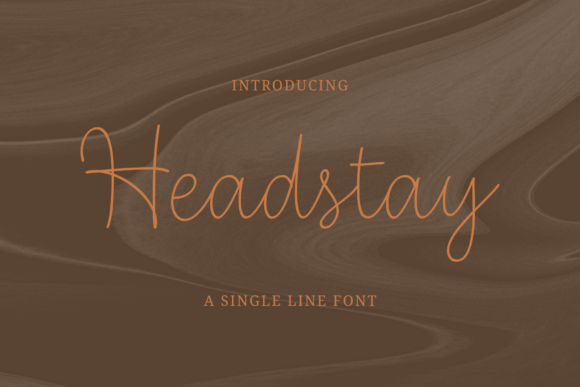
Feast your eyes on Headstay Font - the exquisite script font crafted by the brilliant minds at nhfonts. Immerse yourself in a world of elegance, modernity, and sophistication as Headstay transforms your creative visions into captivating realities.
With its flowing curves and graceful lines, Headstay dances effortlessly across your designs, adding a touch of timeless beauty to every character. Its versatility knows no bounds, making it a perfect companion for logos, branding, invitations, stationery, wedding designs, social media posts, and beyond.
Unleash your inner artist and let Headstay guide your creations to new heights. Its modern aesthetic blends seamlessly with classic elements, creating a visual symphony that captivates hearts and minds.
Imagine your logo adorned with Headstay's elegant strokes, exuding an aura of professionalism and sophistication. Your branding will radiate a unique charm, attracting customers like moths to a flame.
Envision your invitations and stationery enhanced by Headstay's delicate touch. Each letter dances and twirls, inviting your guests to embark on a journey of elegance and timeless beauty.
Picture your wedding designs adorned with Headstay's graceful script, transforming your special day into an unforgettable affair. The vows you exchange, the toasts you raise, and the memories you create will be forever etched in the hearts of those present, thanks to the magic of Headstay.
Headstay isn't just a font; it's an extension of your creative expression. It elevates your designs, captivates your audience, and leaves an indelible mark on their minds. Join the countless satisfied users who have discovered the transformative power of Headstay and unlock the full potential of your creative genius.